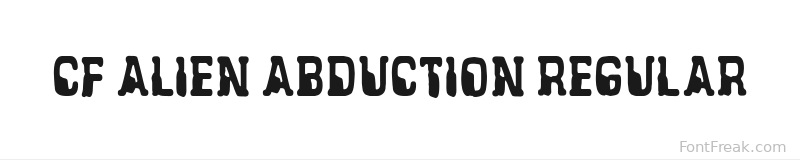
CF Alien Abduction Regular
About CF Alien Abduction Regular
CF Alien Abduction Regular is a distinctive display font that captures a playful yet otherworldly essence. Designed by Cloutierfontes in 2013, this font stands out with its bold, blocky characters that convey a sense of adventure and whimsy. The stroke weight is consistent, with a slightly exaggerated boldness that enhances its visibility, making it an excellent choice for attention-grabbing designs. The characters are well-spaced, allowing for easy readability while maintaining a unique aesthetic.
This font is perfect for a variety of creative applications. Its fun and quirky style makes it ideal for children's book covers, where it can evoke a sense of imagination and wonder. Additionally, it can be effectively used in movie posters, particularly for sci-fi or adventure genres, where the theme of alien encounters can be visually represented. Restaurant menus that feature a playful twist on their branding can also benefit from the CF Alien Abduction Regular font, attracting diners with its eye-catching appeal. Content creators looking to add a humorous touch to their social media graphics will find this font particularly useful, as it adds personality to any project.
The target audience for this font includes graphic designers, small business owners, and content creators who are looking for a unique typeface to elevate their work. The whimsical nature of CF Alien Abduction Regular appeals to those who want to inject a sense of fun into their designs.
What sets CF Alien Abduction Regular apart is its ability to blend boldness with a lighthearted theme, making it a versatile choice for various creative endeavors. For anyone seeking a playful yet impactful font, the CF Alien Abduction Regular font free download is a fantastic option that will surely enhance your projects.